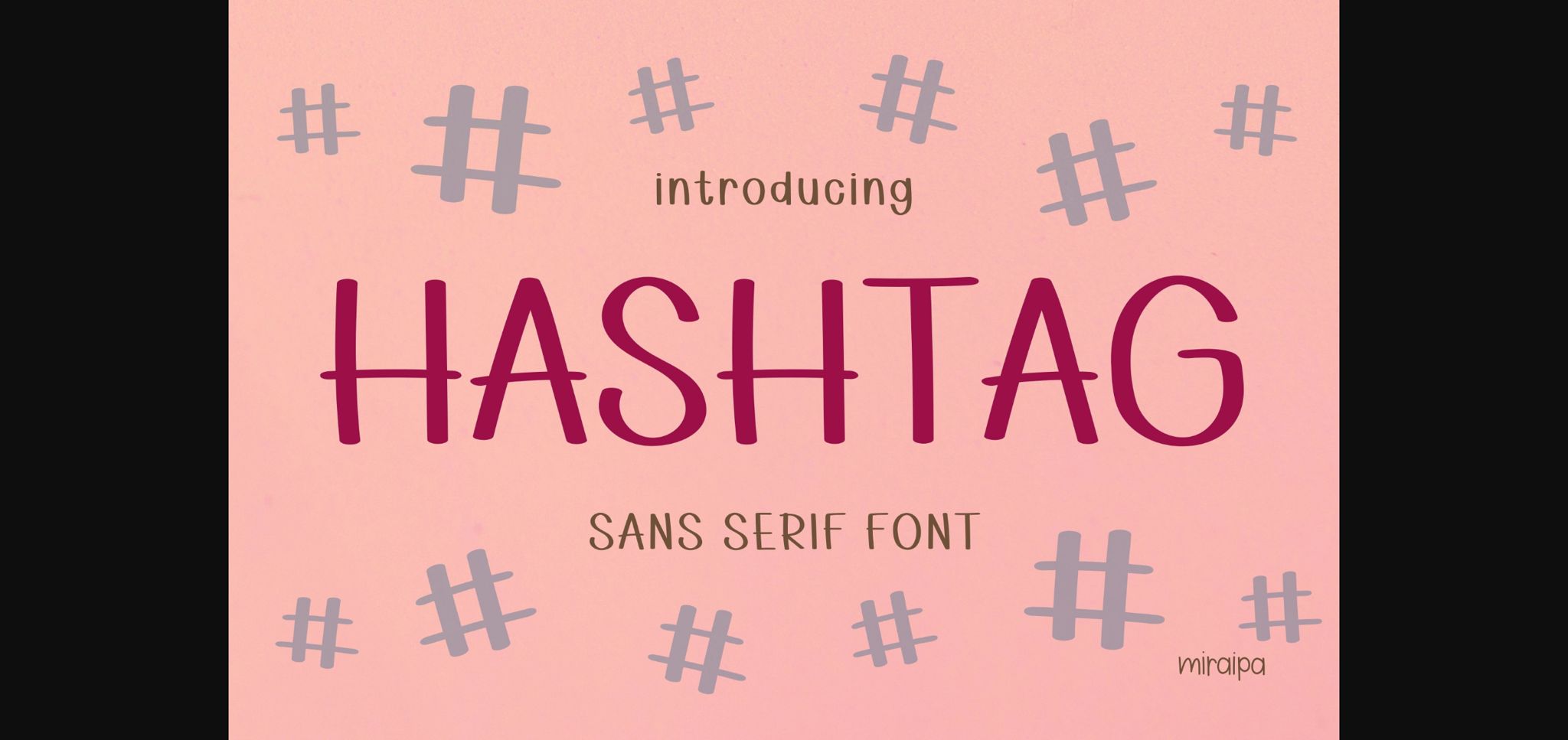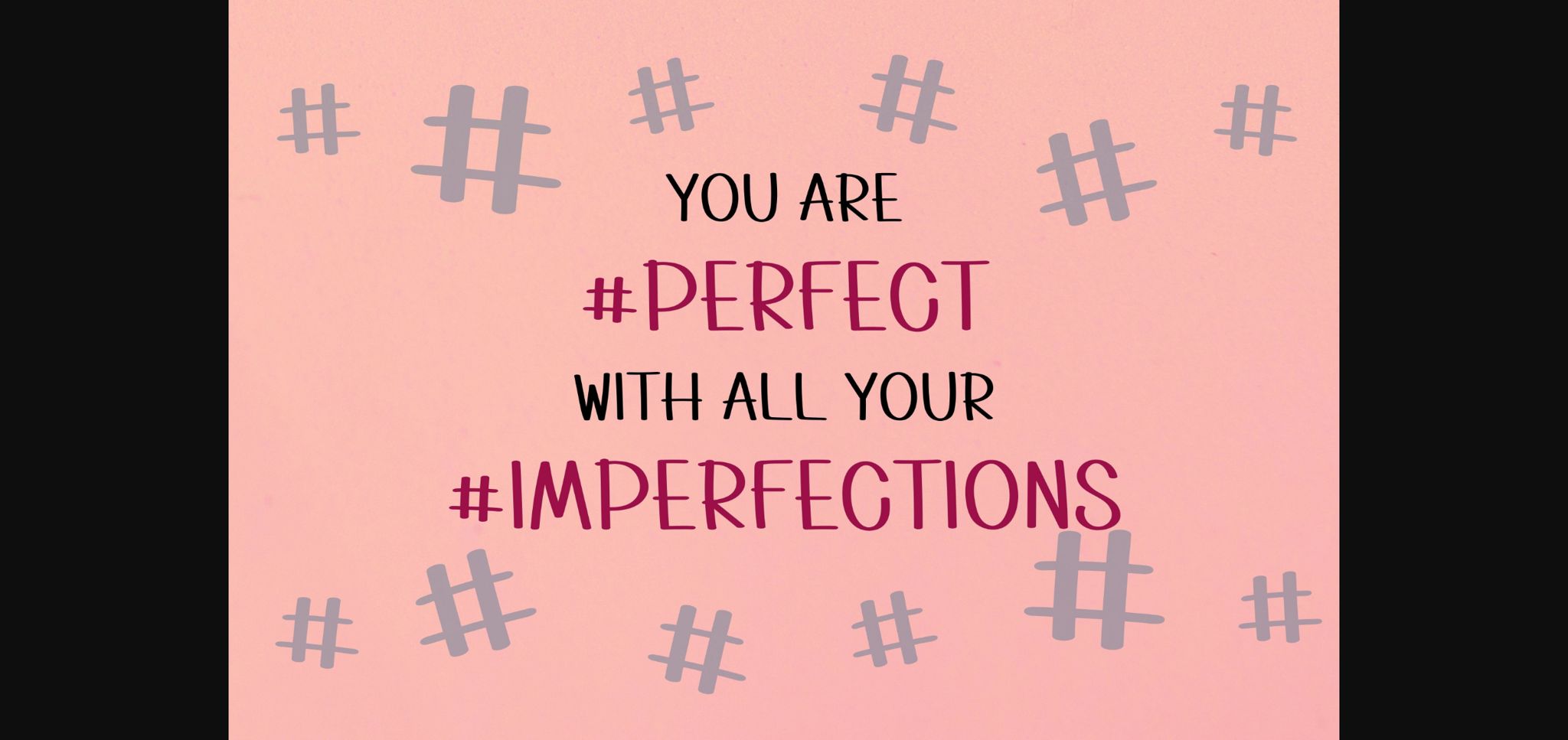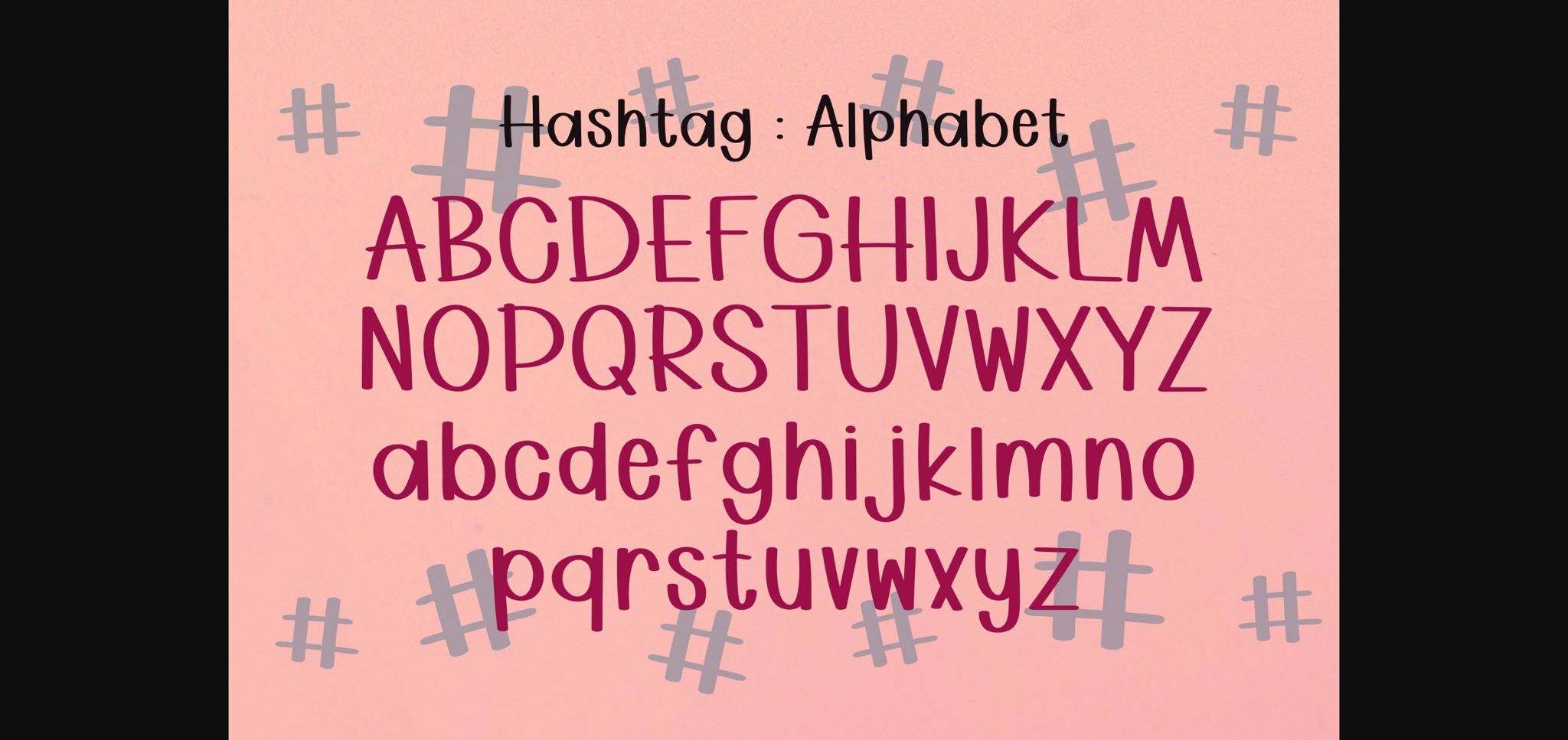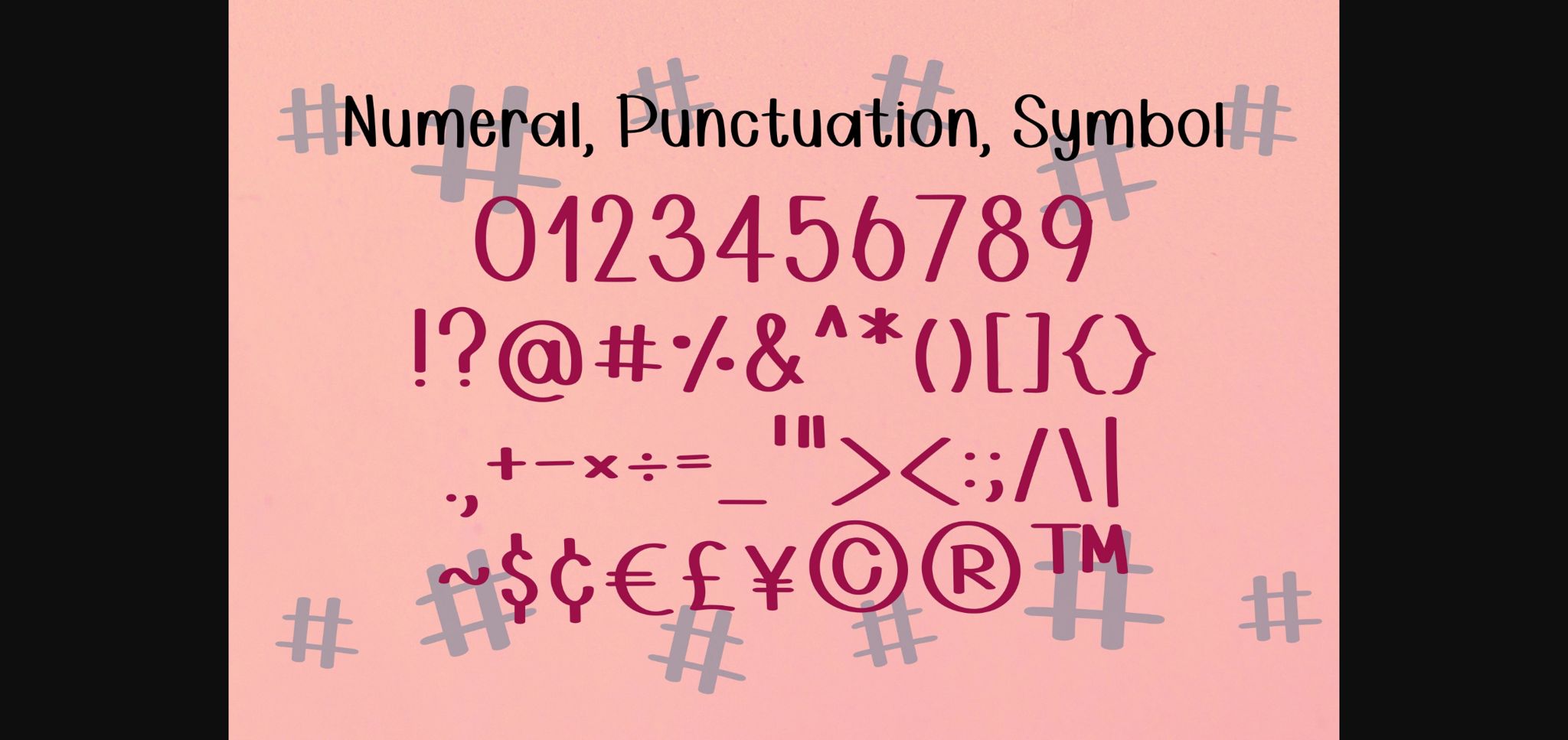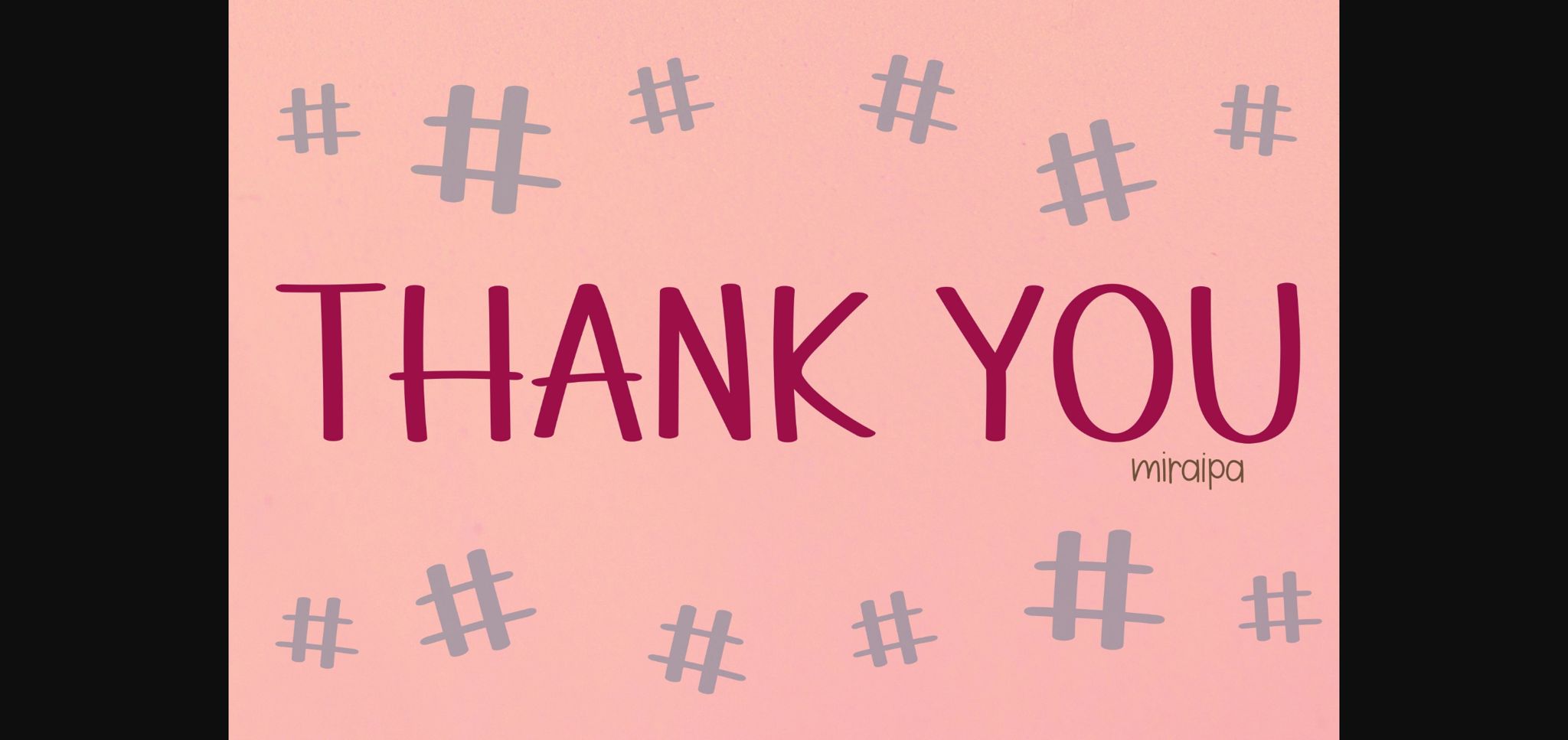
Hashtag Font
About Hashtag Font
Hashtag is designed in a friendly sans serif style. It is perfect for planners, back-to-school projects, weddings, party decorations, invitations, Halloween, Christmas, posters, blogs, clothing, child-related designs, greeting cards, social media posts, or anything that needs a friendly touch. Add it now to your fonts library, and it will bring any of your DIY projects to life.